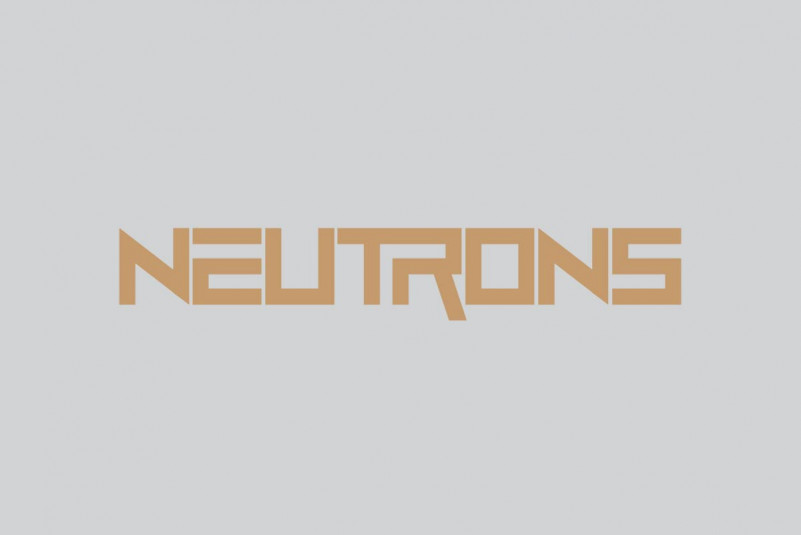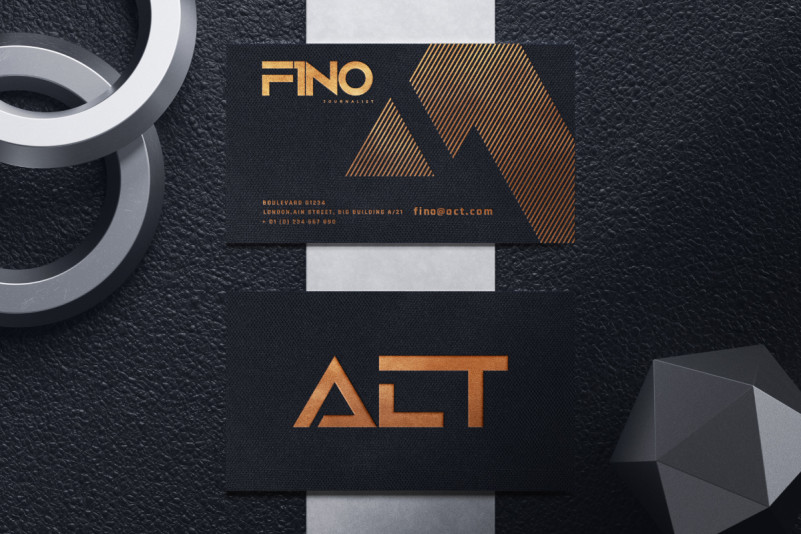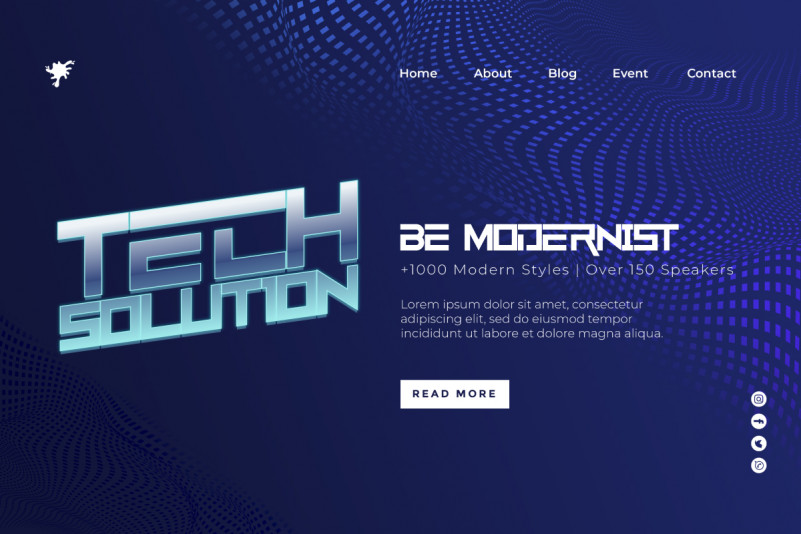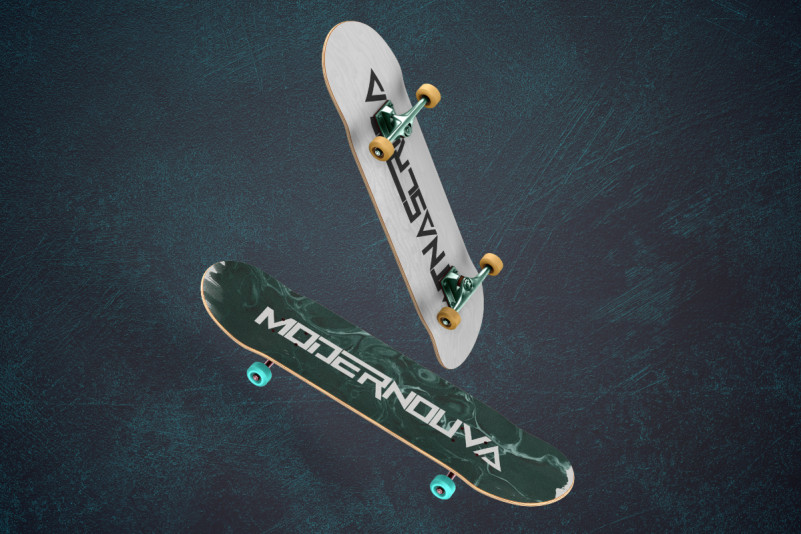
Neutrons Font
Neutrons Display Font
This is a modern sans serif display font family. The style of this font are futuristic, techno, strong, masculine, sporty etc. Great for logo, brandings, headlines, signage etc. Neutrons Font come with some ligature like the “tr” on Neutrons, the ligatures will make the font stand out and really stunning unique.